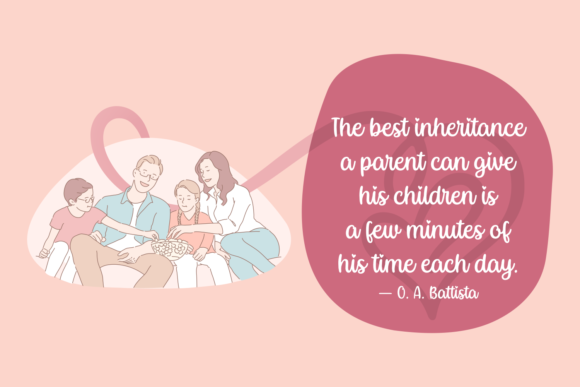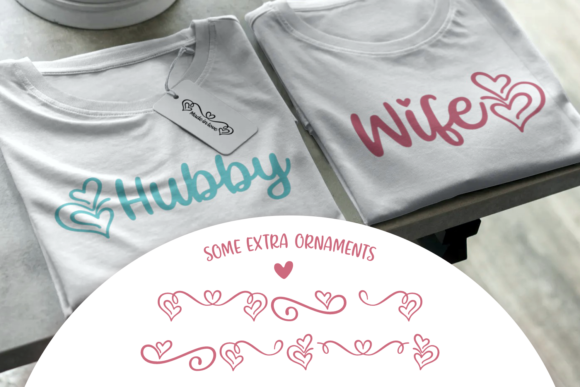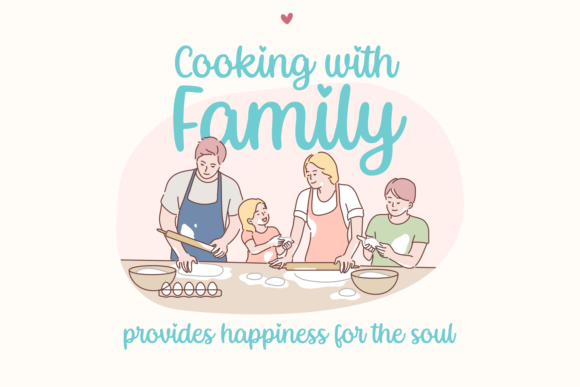
Introduction to Kindhearted Parents Font
Kindhearted Parents is a charming handwritten font carefully created with a touch of elegance.
Key Features of Kindhearted Parents Font
Why Choose Kindhearted Parents Font?
Kindhearted Parents Font offers exceptional quality and versatility, making it a valuable addition to your design toolkit. Whether you’re creating for personal projects or commercial use, Kindhearted Parents Font delivers professional results.